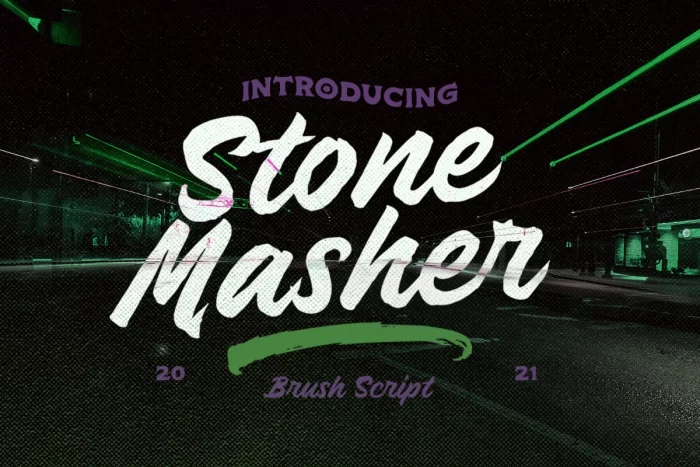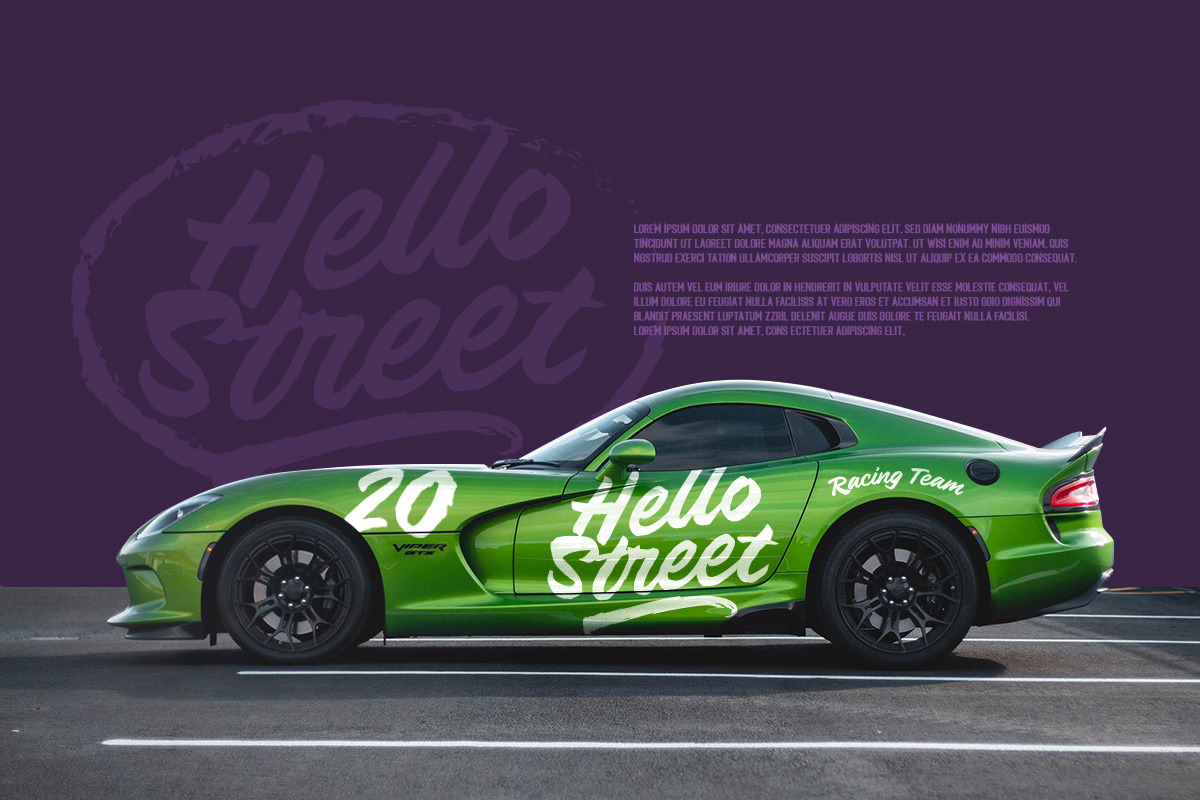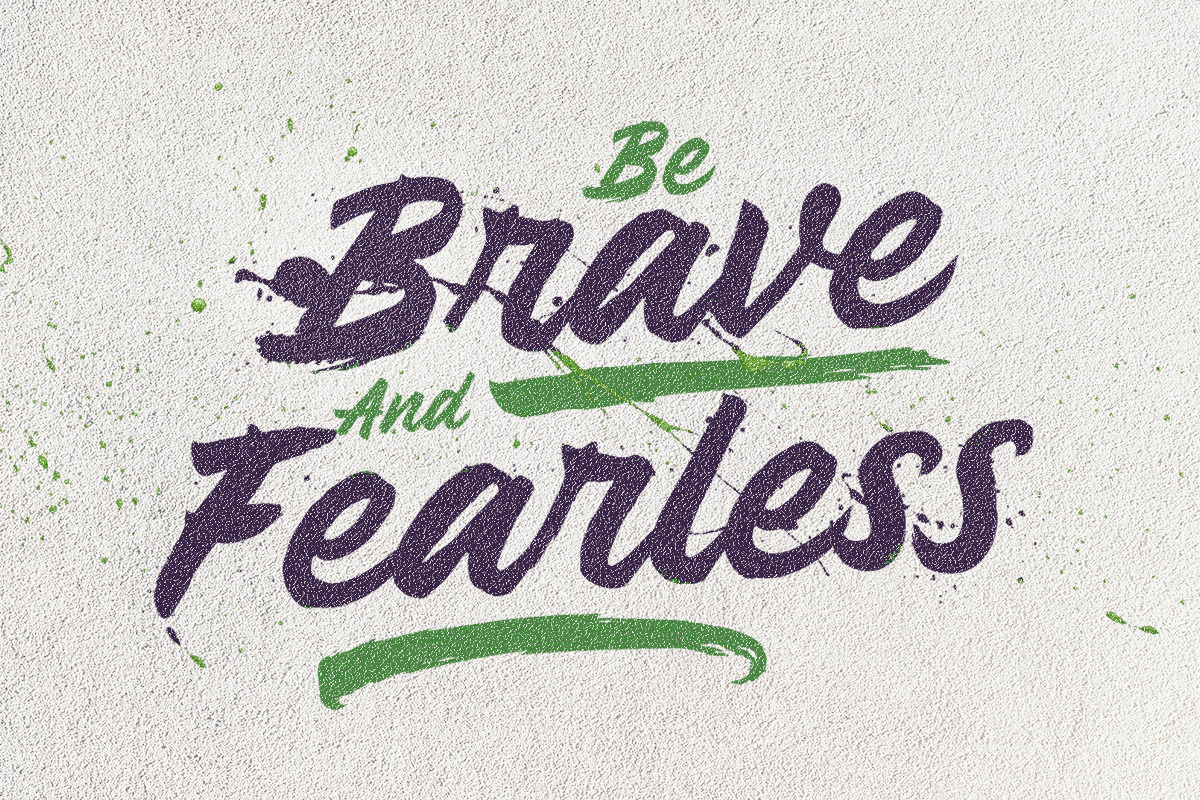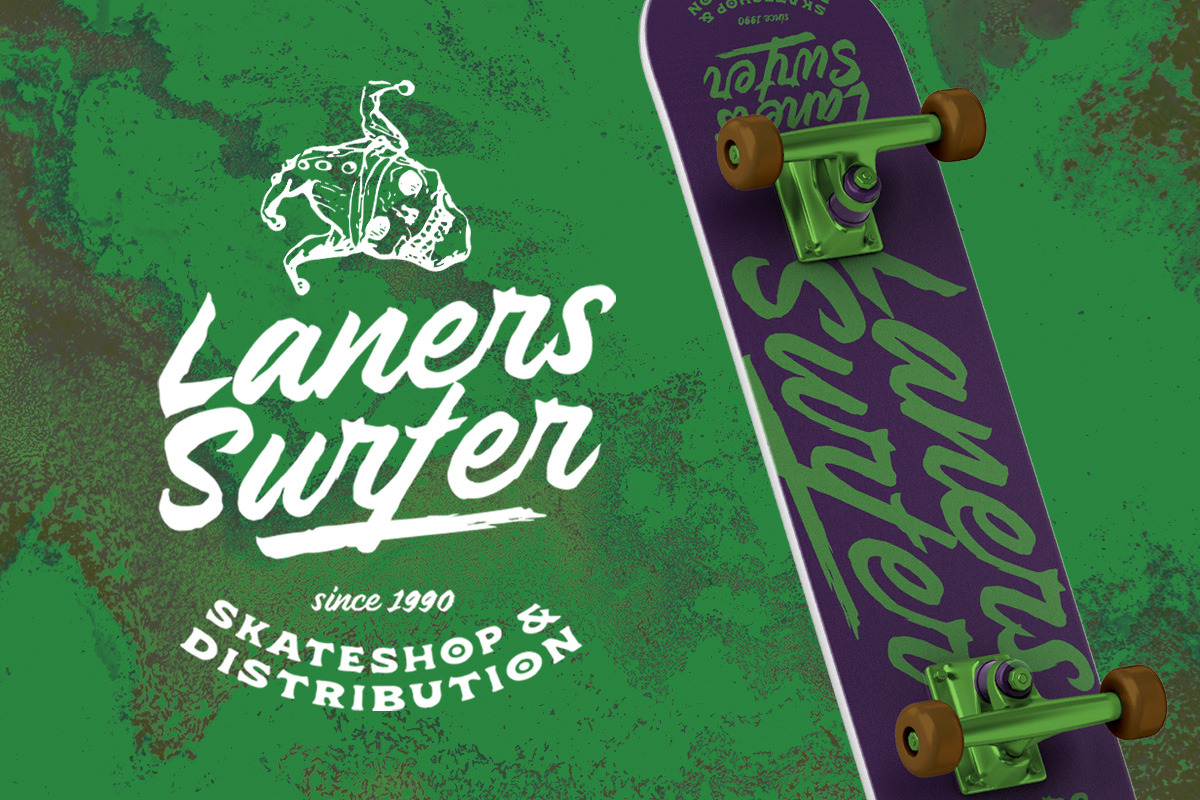
Stone Masher Font
Stone Masher is a bold hand drawn brush script which is purposely made for headline, display or logotype, and signature which need a standout appearing. This font is also suitable to be applied especially in logo, and the other various formal forms such as invitations, labels, logos, magazines, books, greeting / wedding cards, packaging, fashion, make up, stationery, novels, labels or any type of advertising purpose.
• uppercase & lowercase
• numbers and punctuation
• multilingual
• alternates & ligatures